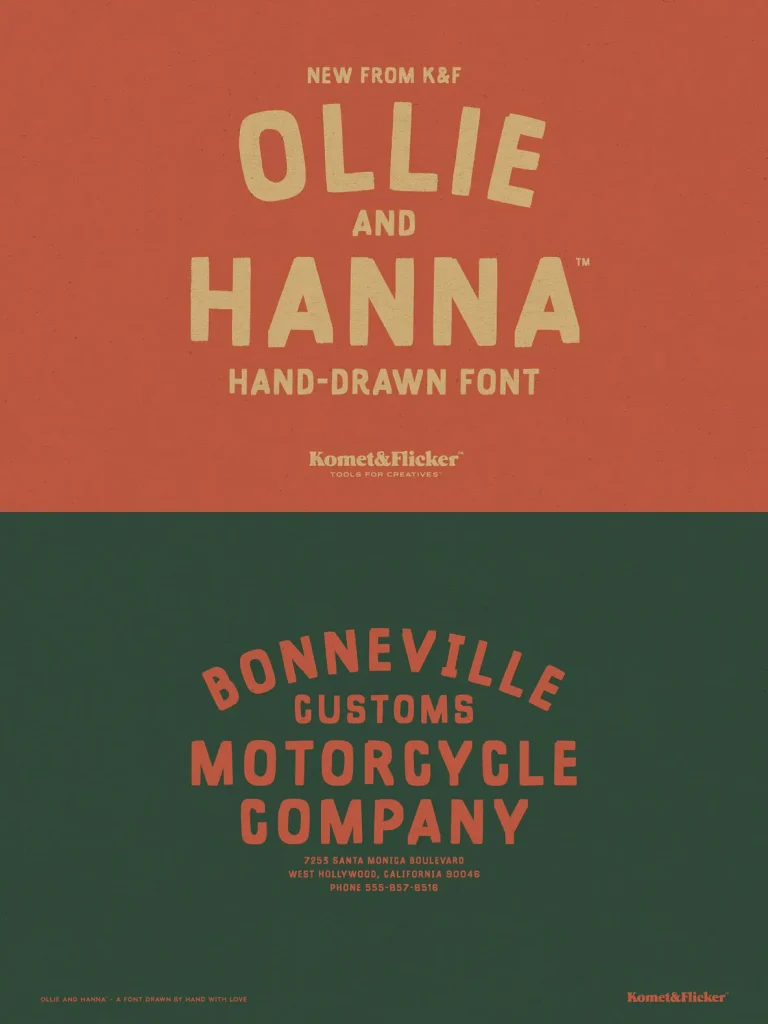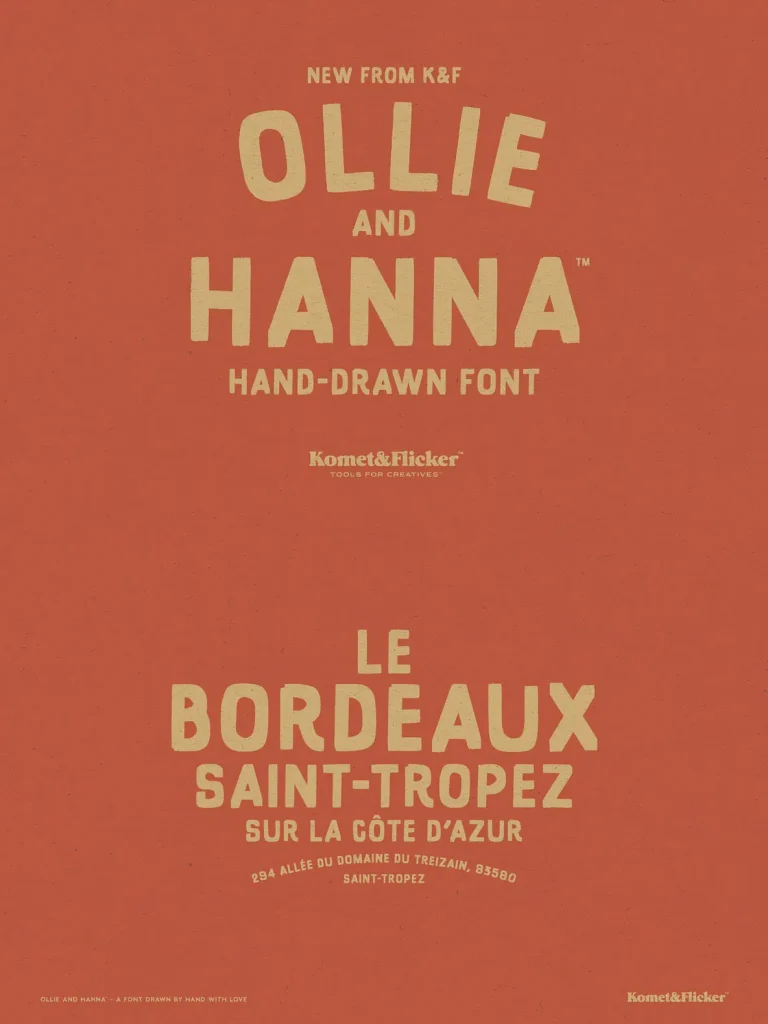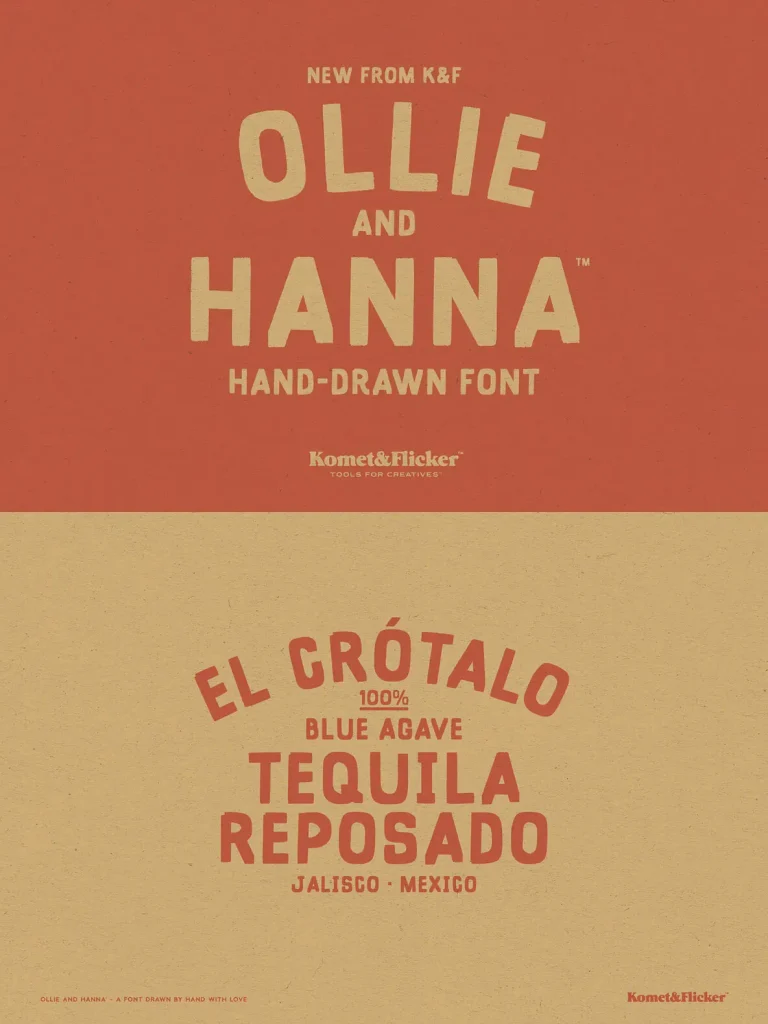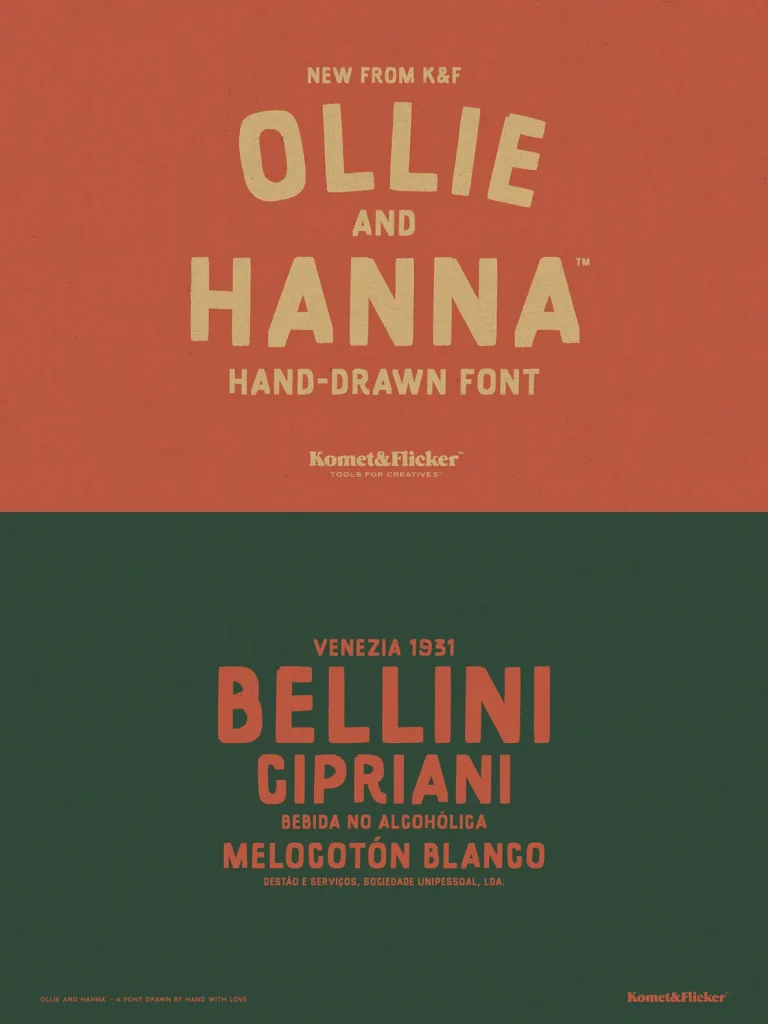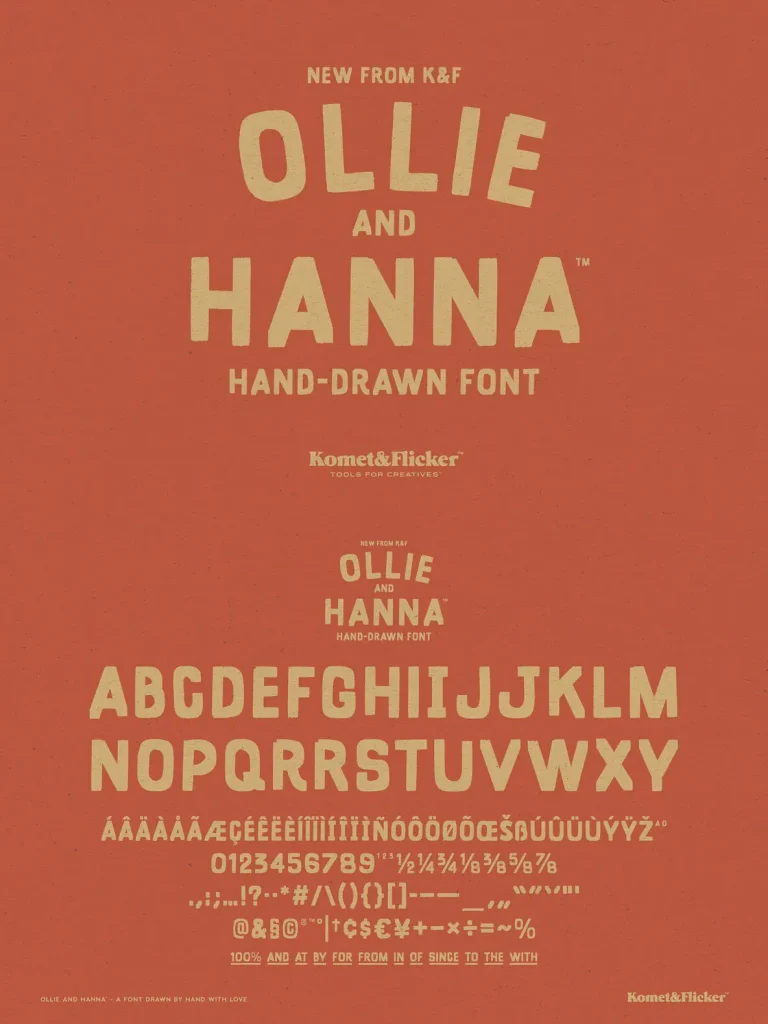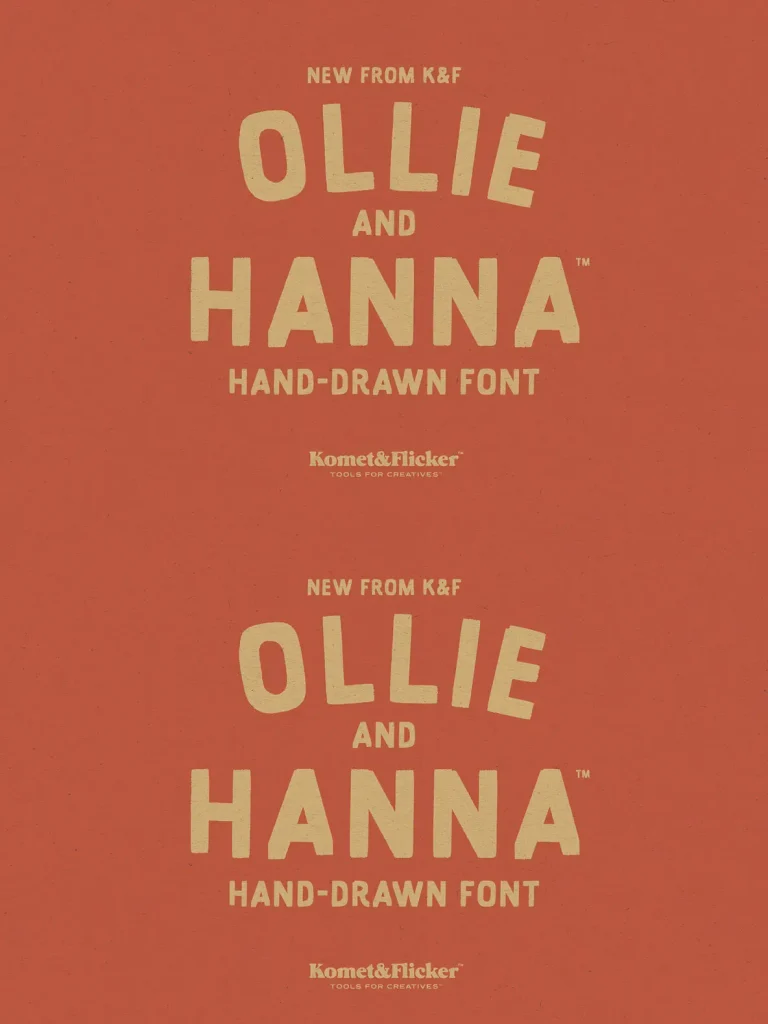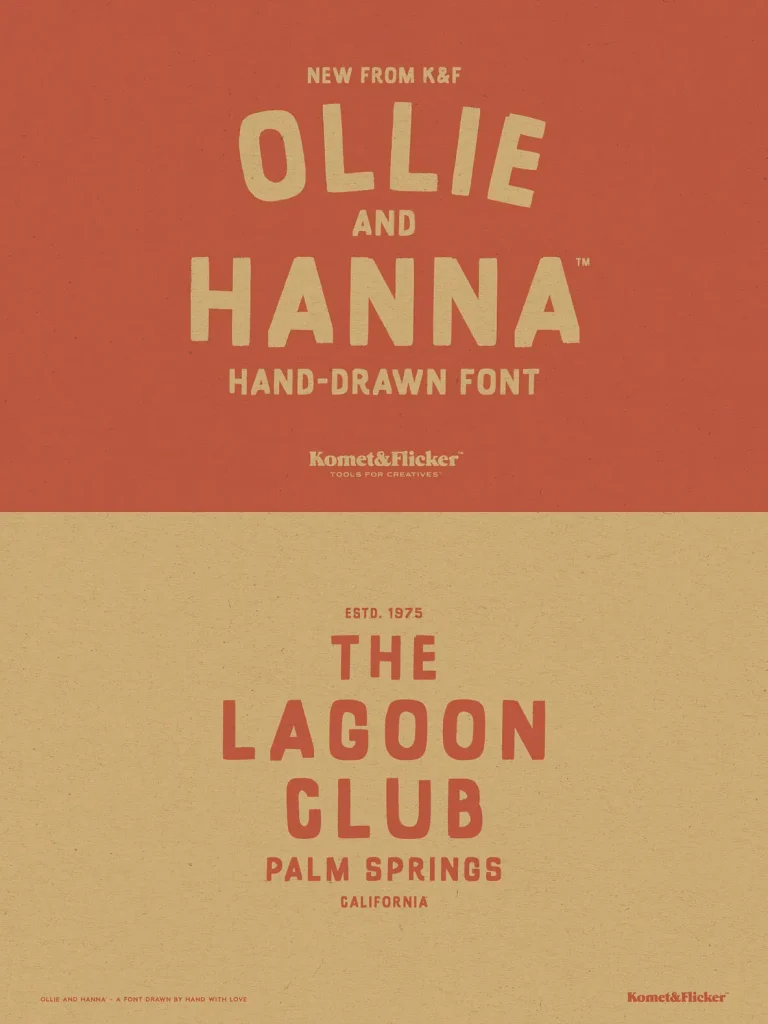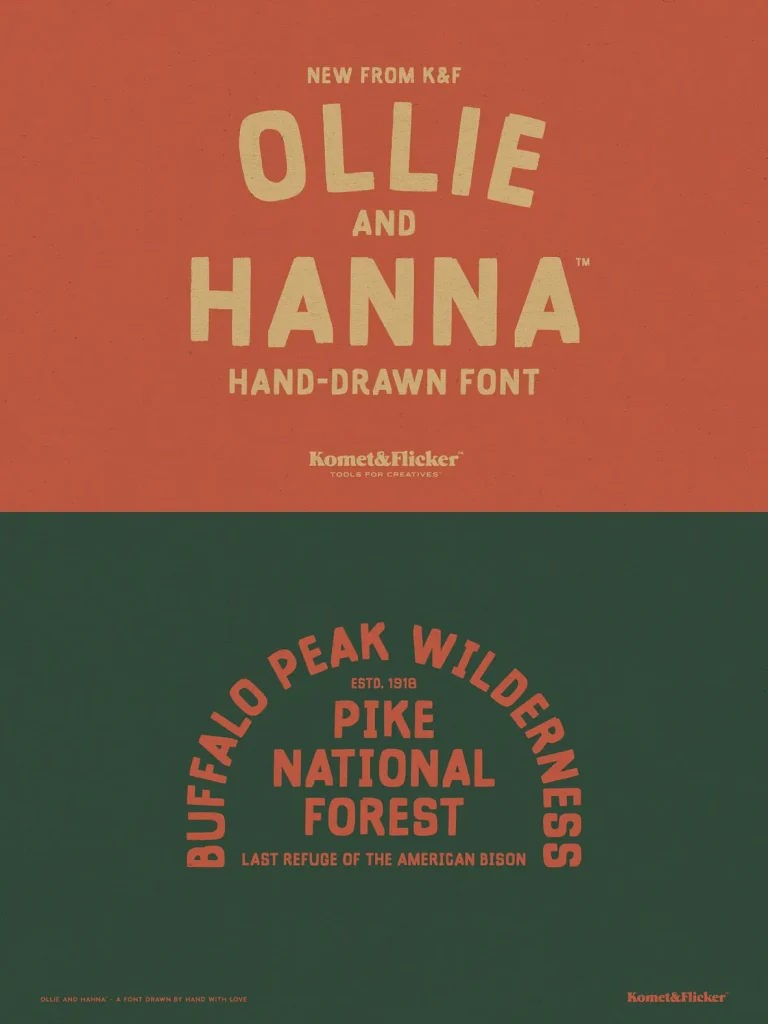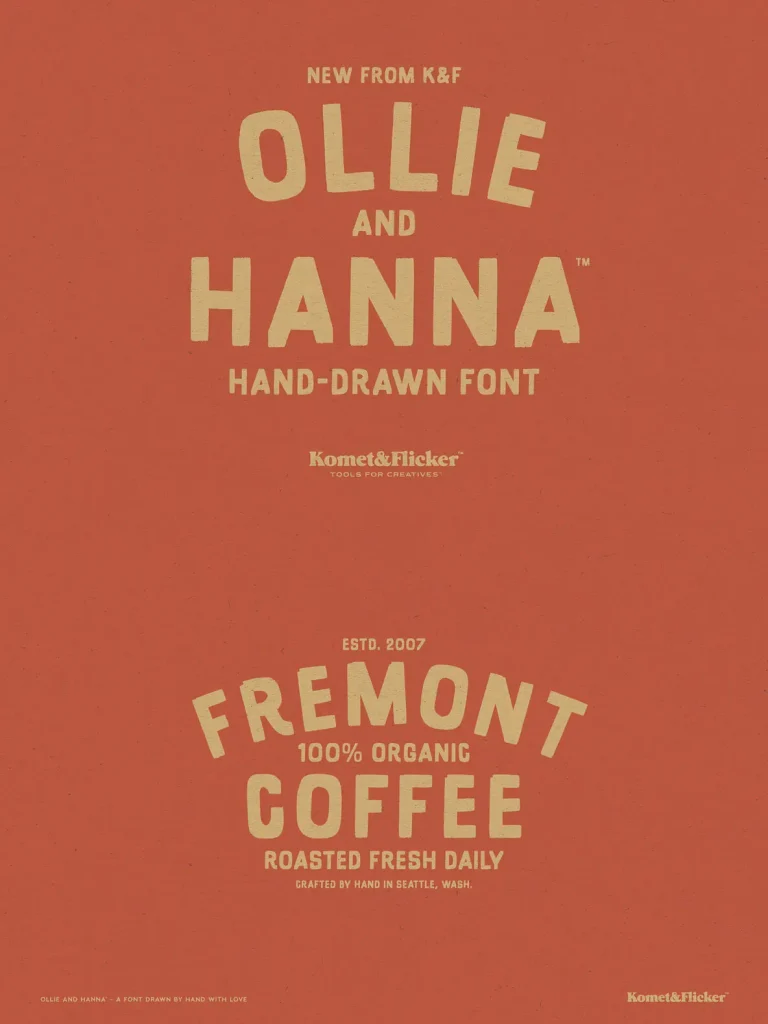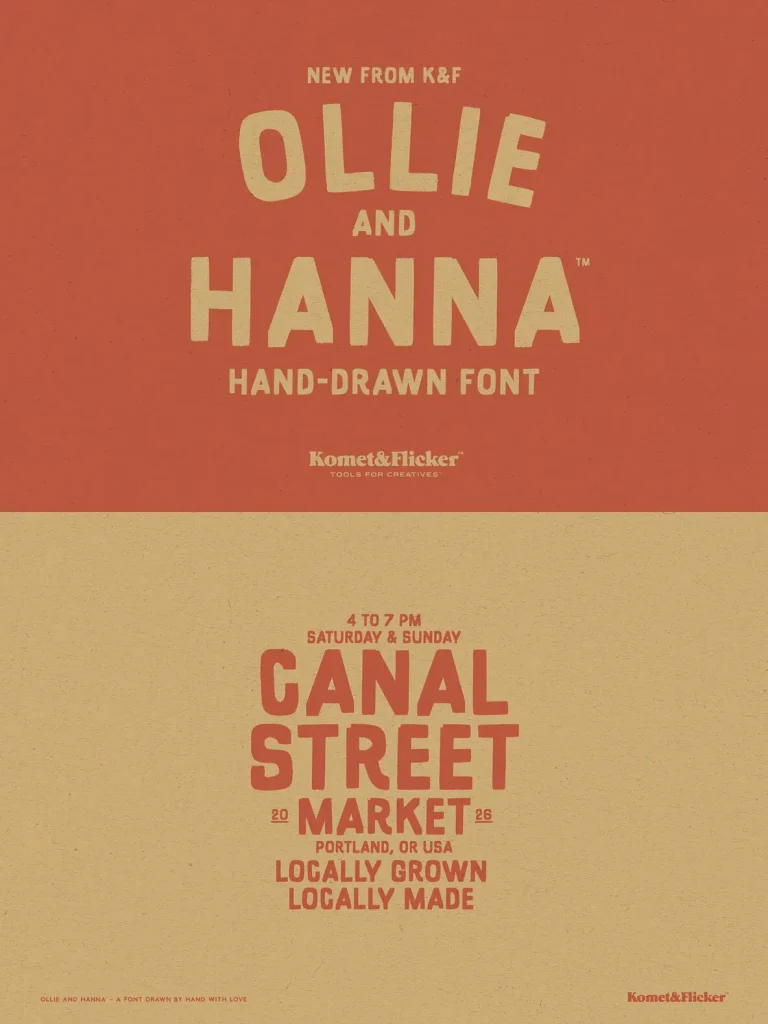
Ollie and Hanna — Handmade With Heart
Ollie and Hanna is a hand-lettered font with bold energy and heartfelt character. Drawn by hand with a rough marker brush, each stroke carries loose imperfections that make it feel genuinely human: unpolished, expressive, and full of life.
With its rough, authentic style, Ollie and Hanna suits projects that need warmth and personality over precision. Use it for headlines, posters, branding, and designs where a handmade soul matters. The typeface also includes a set of 12 custom connecting word glyphs, such as “and,” “the,” and “of,” for smooth transitions between words and a more personal hand-drawn feel.
Full A-Z basic Latin uppercase characters
Select European-specific characters
Numbers, punctuation, and select symbols
Pre-made common fractions
Set of 12 custom connecting word glyphs